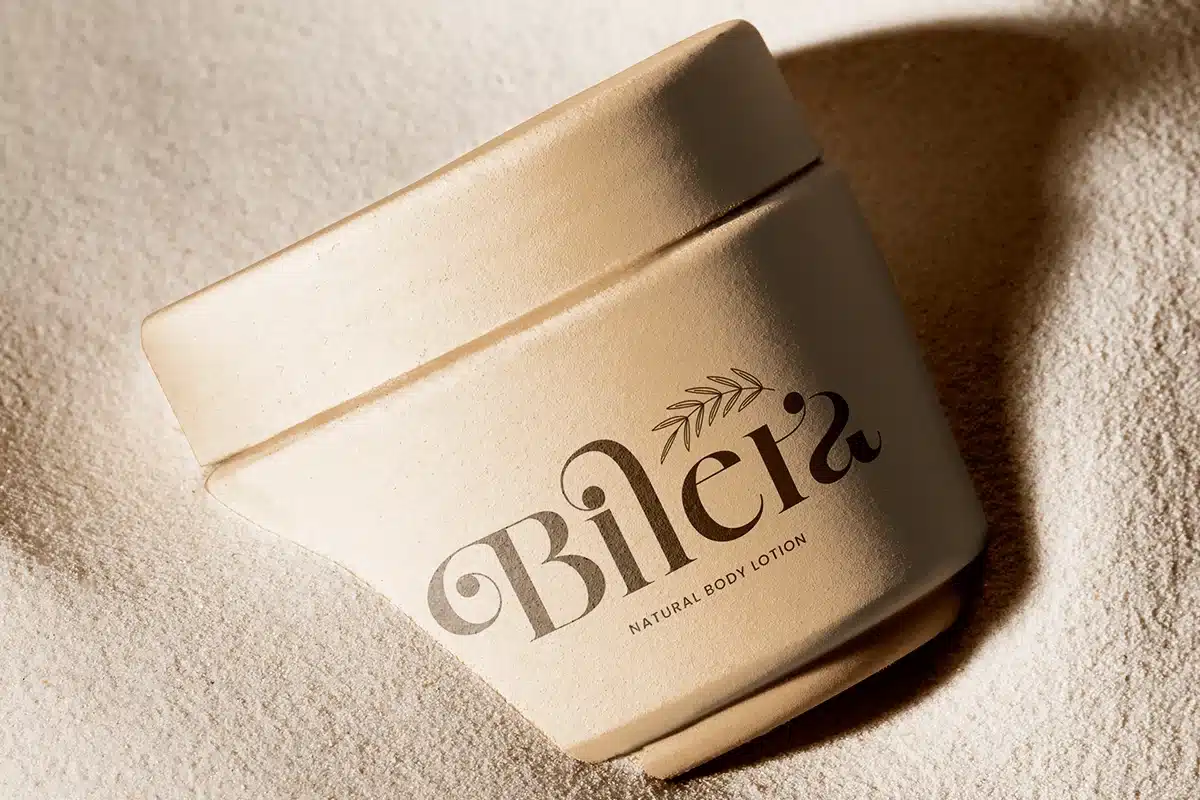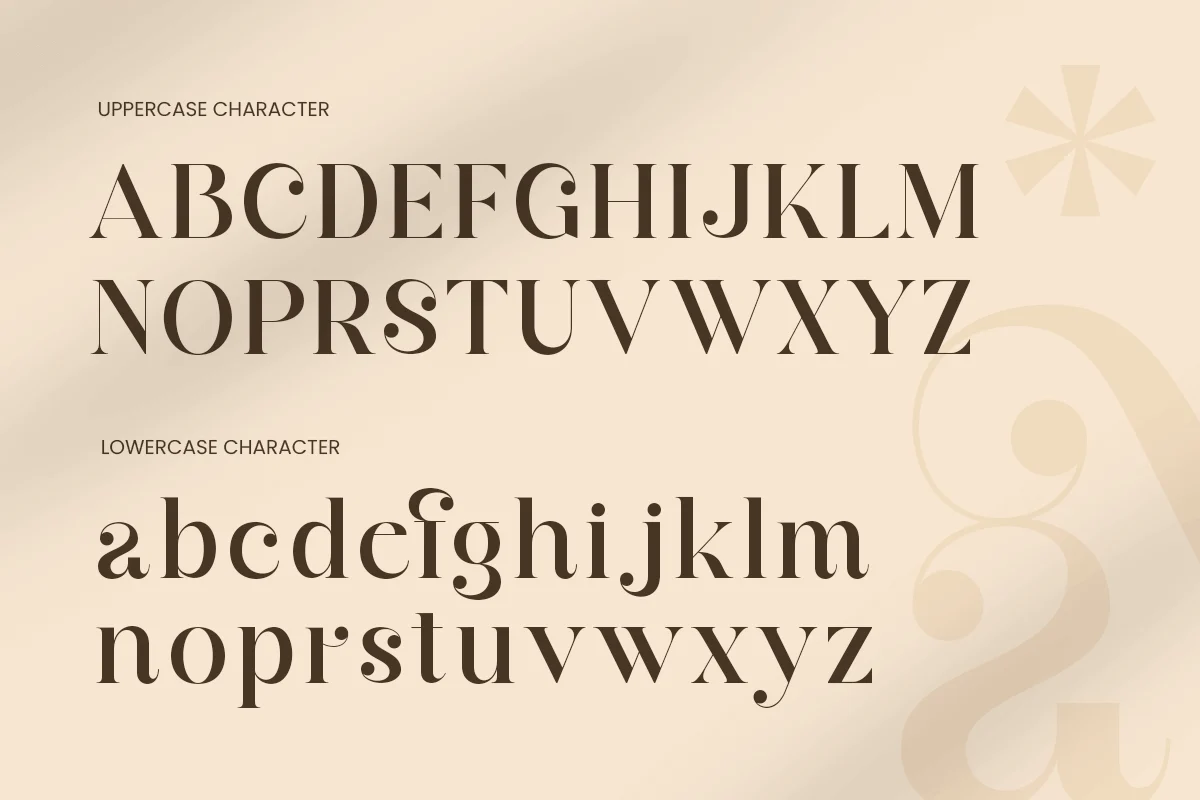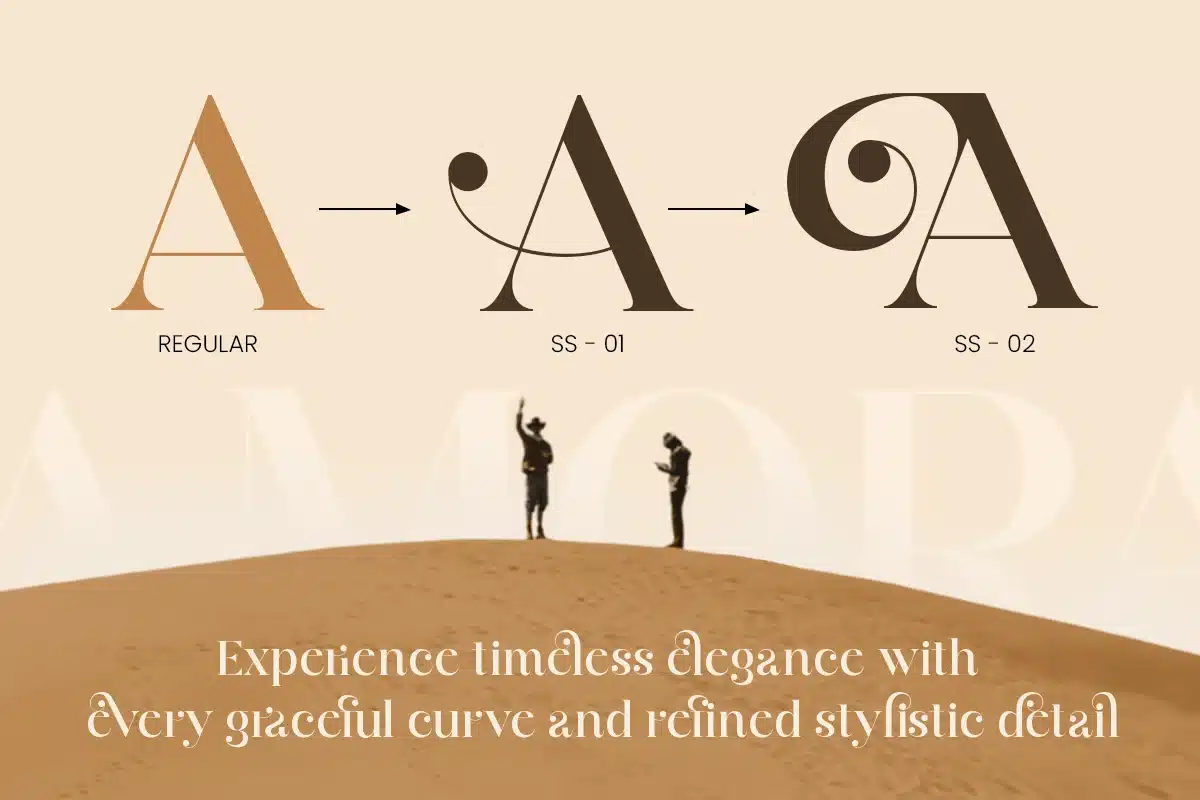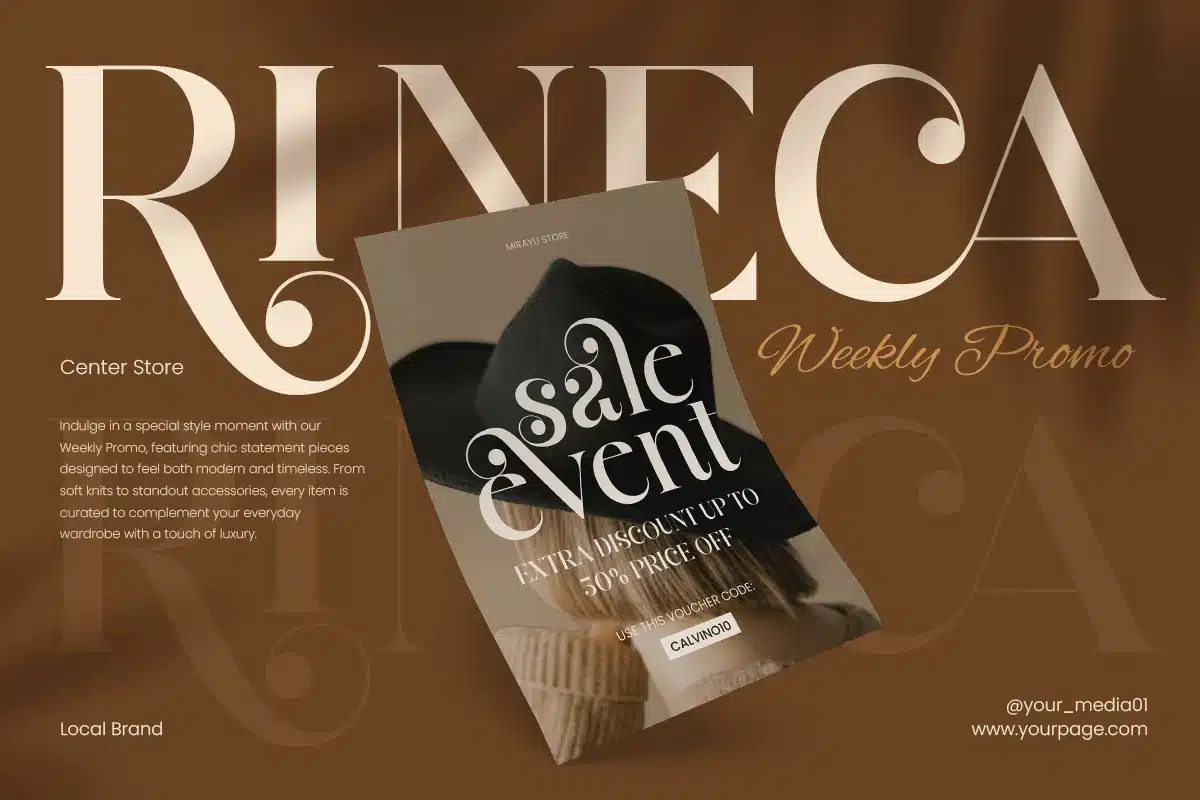
Clarine – Modern Cinematic Serif Logo Font
Clarine is a modern cinematic serif logo font crafted to deliver drama, elegance, and a premium big-screen presence. With refined serif details and a confident modern structure, this typeface creates a sophisticated tone that feels luxurious, timeless, and visually commanding.
Designed for high-impact branding and cinematic typography, Clarine works beautifully across logos, film-style titles, editorial headlines, premium packaging, posters, website headers, and social media campaigns. Its elegant cinematic character helps brands look polished and memorable while staying clean and readable in both print and digital layouts.
Whether you’re creating a luxury identity, a cinematic poster, or an upscale editorial concept, Clarine delivers a refined serif style that adds prestige and storytelling power to every word.
Inspiration Behind Clarine
Clarine is inspired by classic cinema title cards and modern luxury editorial design—where elegance, contrast, and drama define the visual mood. Built for logo design and premium branding systems, it performs seamlessly across luxury logos, film titles, magazine covers, posters, packaging, and digital campaigns—perfect for fashion, beauty, fragrance, jewelry, and cinematic-themed branding.
Clarine Font Features
- Modern cinematic serif letterforms with premium character
- Optimized for logo design, titles, and editorial headlines
- Strong readability for display sizes and brand statements
- OpenType features for polished professional typography
- Luxury logos and premium brand identity systems
- Movie posters, cinematic titles, and trailer graphics
- Editorial headlines, magazine covers, and lookbooks
- Fashion, beauty, fragrance, and jewelry packaging
- Social media campaigns, banners, and premium promos
Bring cinematic elegance to your branding with CLARINE—crafted for modern serif luxury and iconic logo impact. 🎬✨